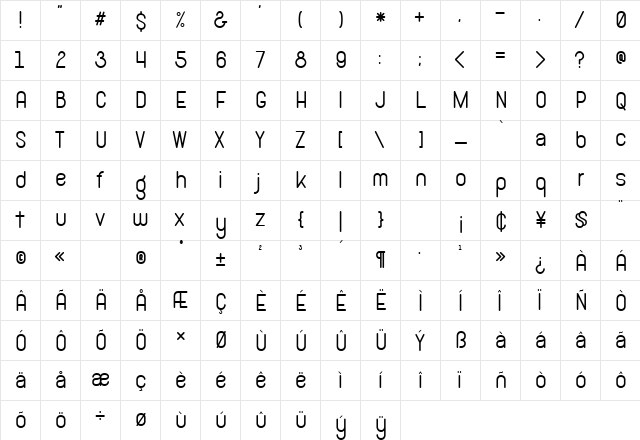
Hamburge Regular
| Foundry | Namara Creative Studio |
| Designer | Toni Setiawan | Namara Creative Studio |
Design Context for Hamburge Typeface
Hamburge offers clean, dependable letterforms without strong stylistic allegiance, making it a practical choice for designers who need flexibility.
Pro Tip: Pair Hamburge with a font of contrasting weight or personality to build a more expressive typographic hierarchy.